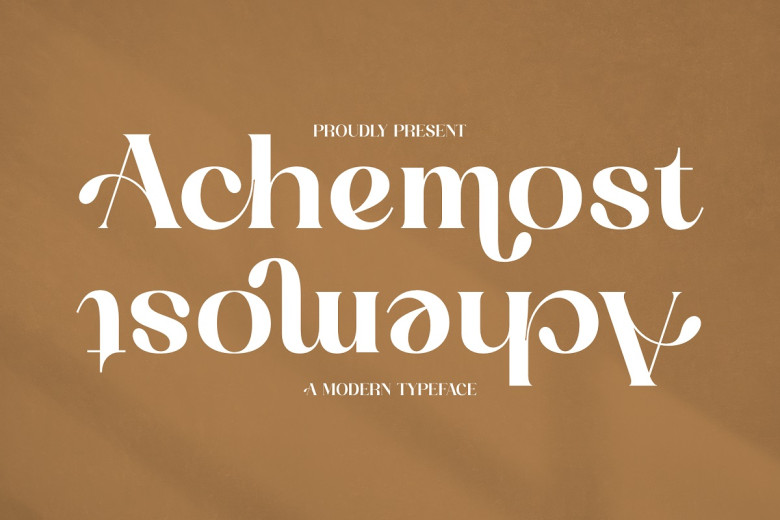
Achemost Font
Achemost features a modern yet classic serif typeface design and can be used for luxurious and elegant logos, fashion brands, clothing items, magazines, movie titles or books.
Achemost Serif Font